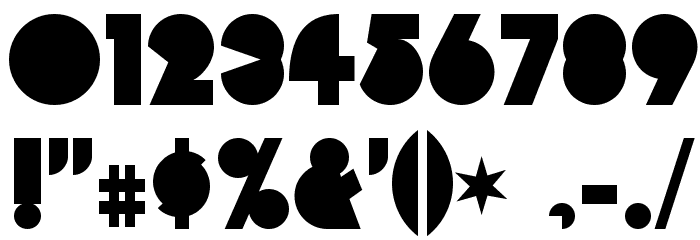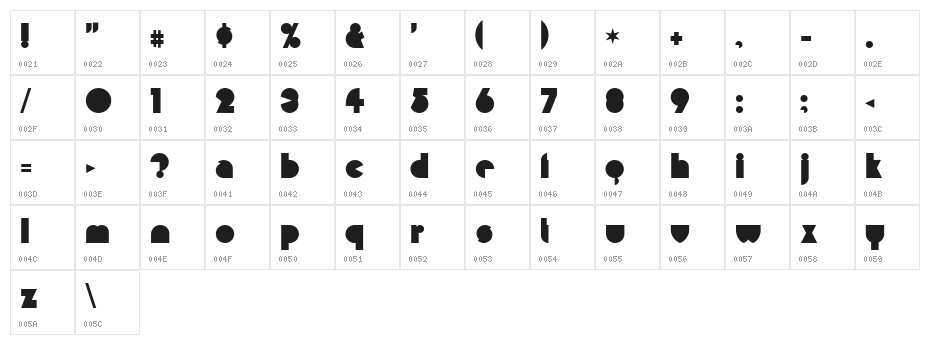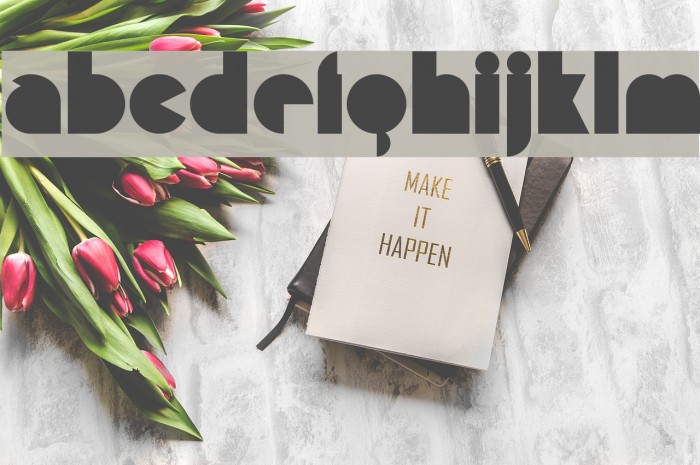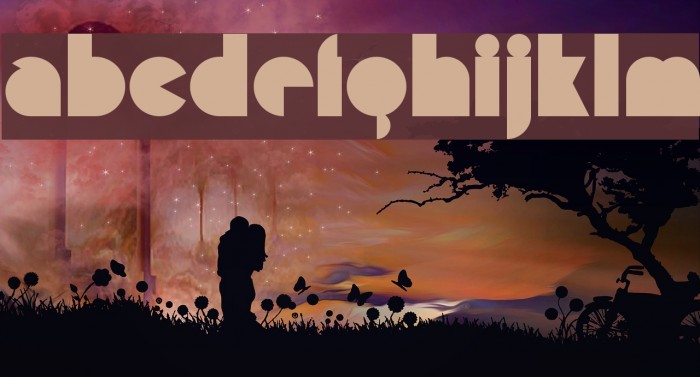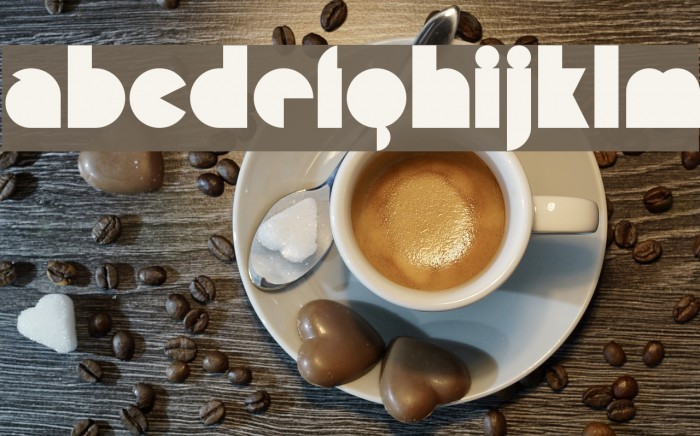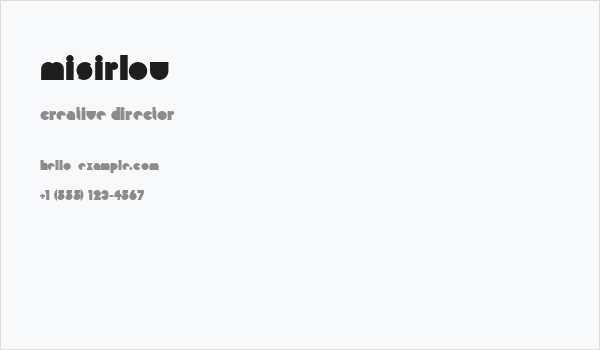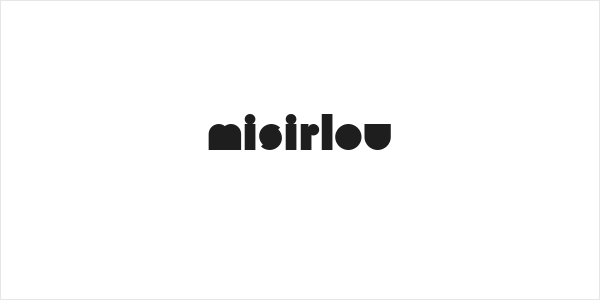
Misirlou Font
Misirlou Description
This font features a bold, geometric design with a strong emphasis on circular and angular shapes. Each character is crafted with a high level of symmetry and balance, creating a visually striking appearance. The uppercase and lowercase letters share a consistent style, with rounded edges and thick strokes that convey a sense of solidity and modernity. The numerals and special characters maintain this cohesive design, ensuring uniformity across all elements. The font's unique style makes it ideal for projects that require a bold and impactful visual statement.